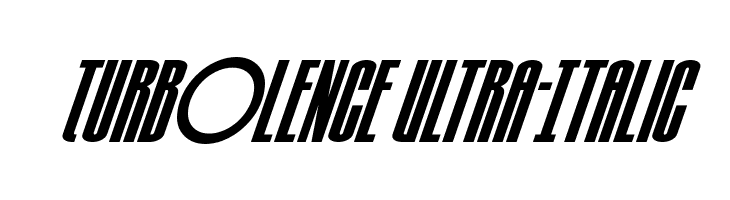
A bold, 3D italic font with outlined characters and a futuristic style.
A bold, 3D outlined font with a leftward slant, offering a dynamic and modern look.
A bold, condensed font with a modern, geometric style.
A bold, condensed, and italic font with high contrast, perfect for striking headlines.
A bold, condensed, and left-italic font with high contrast and tight spacing.
A bold, condensed, semi-italic font with a modern and dynamic style.
A bold, condensed, and highly italicized font with tight spacing and high contrast.
A bold, expanded font with a strong vertical emphasis and consistent stroke thickness.
A bold, expanded, and italicized font with a dynamic and energetic style.
A bold, expanded, and left-slanted font with high contrast and a modern, dynamic style.